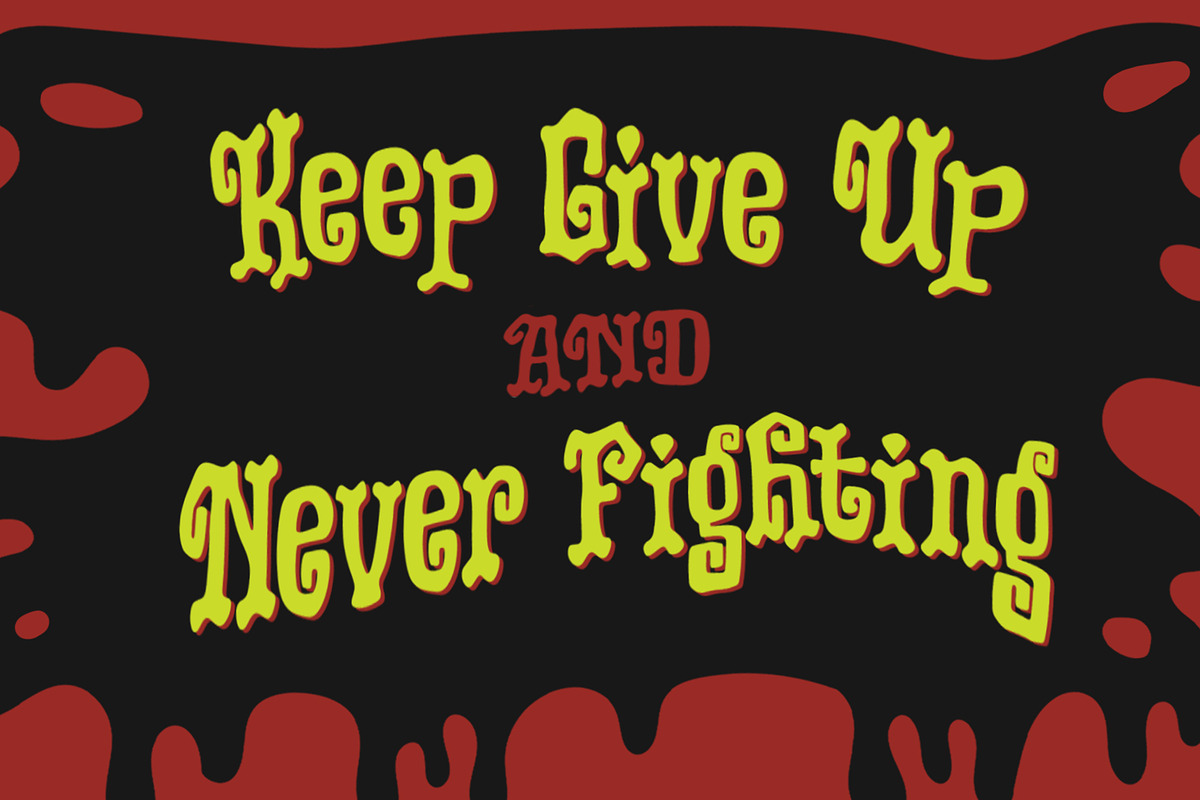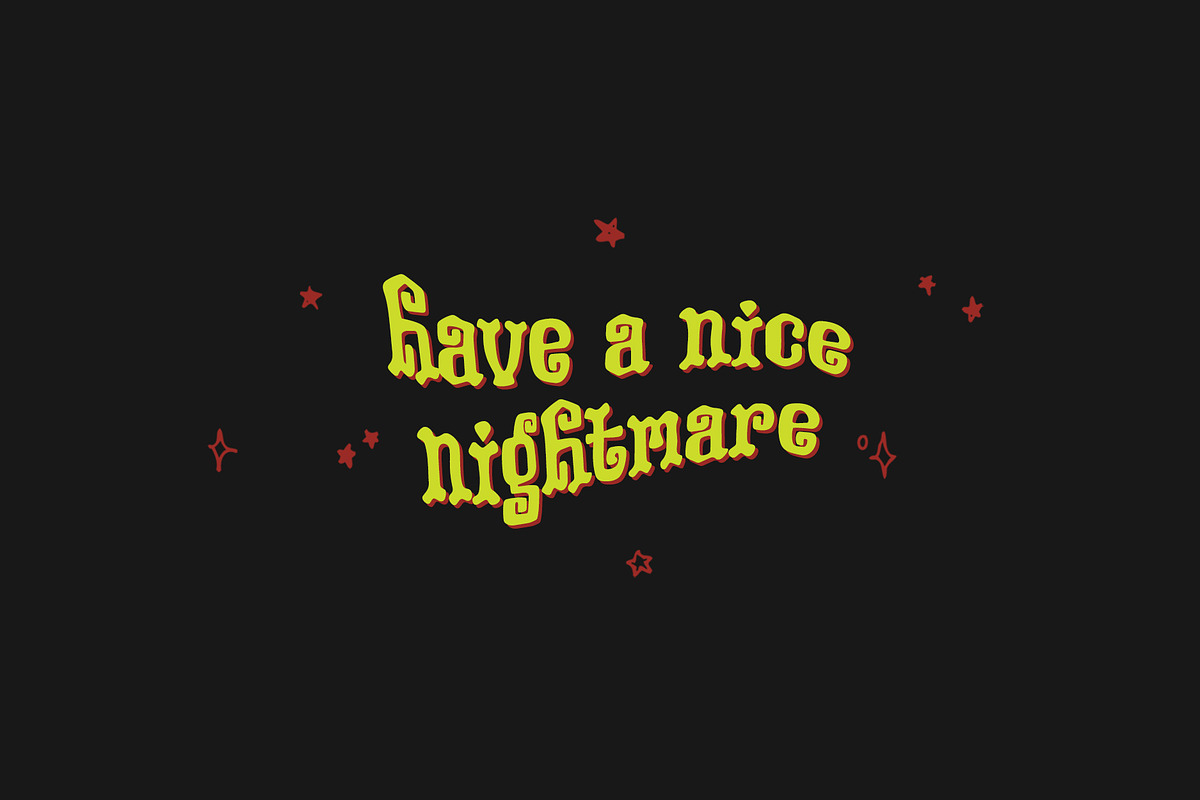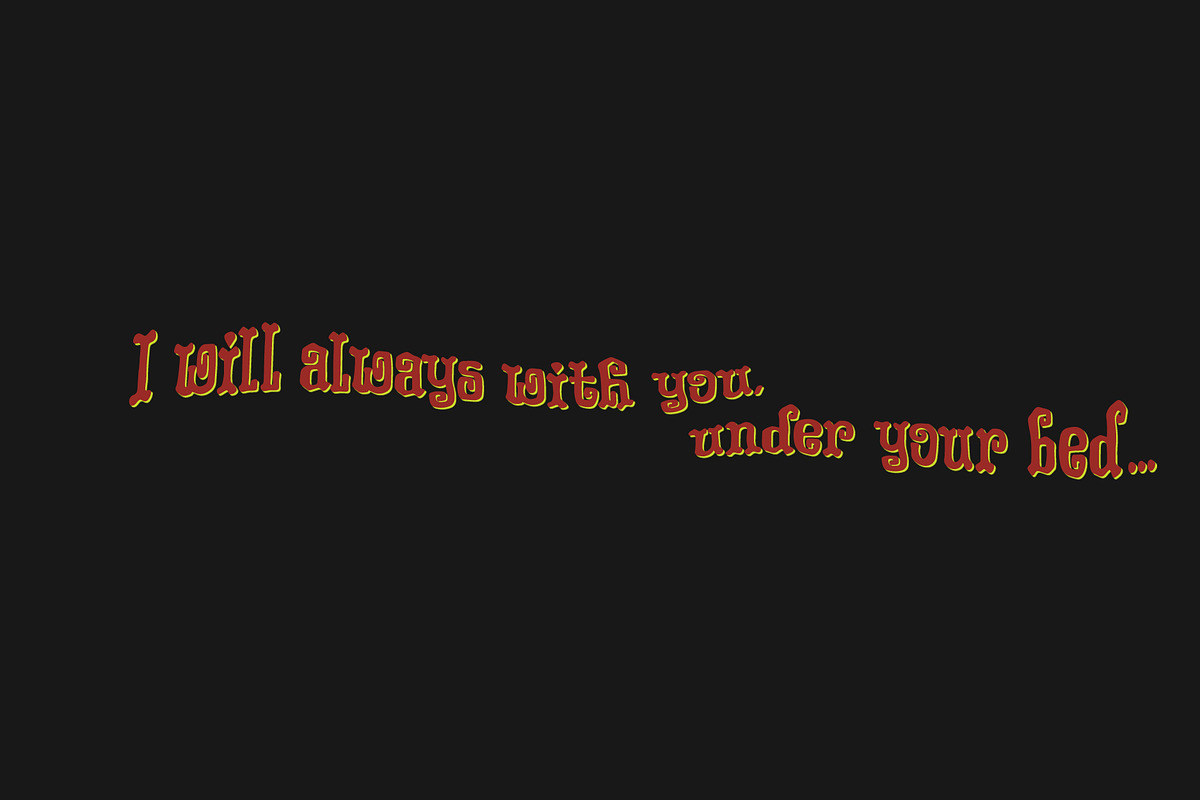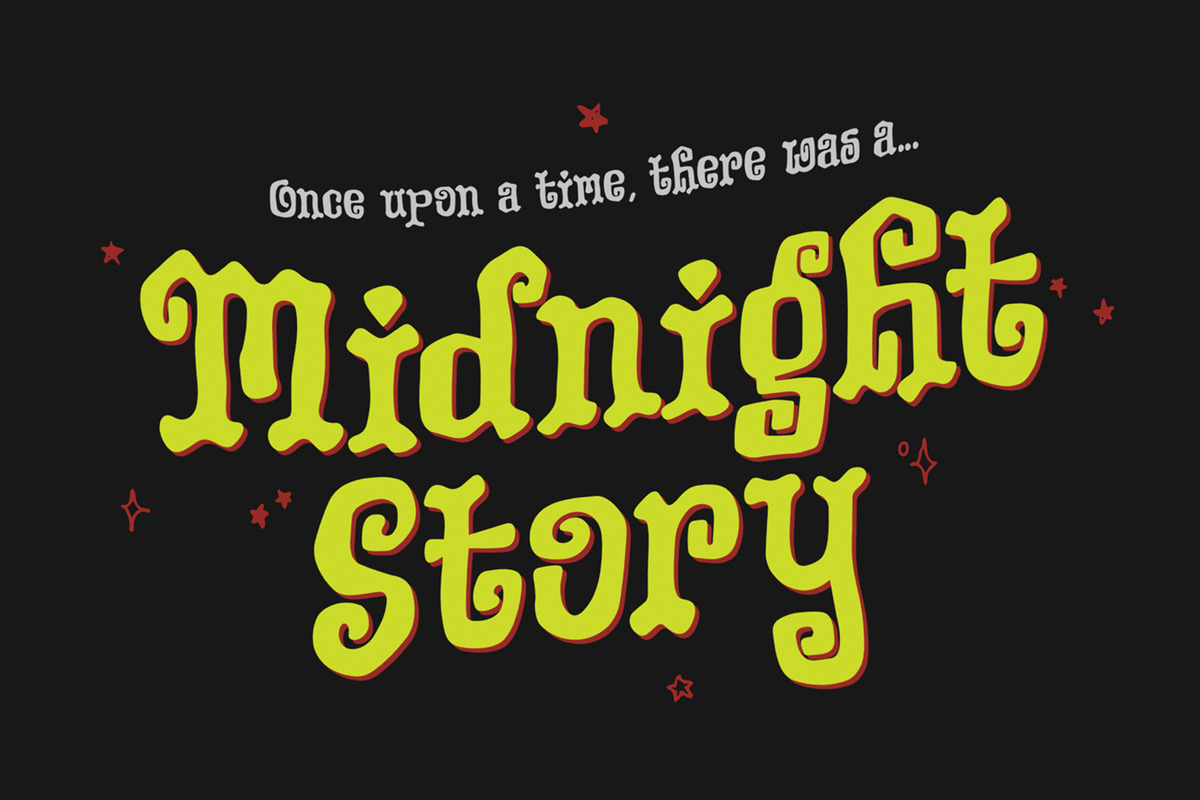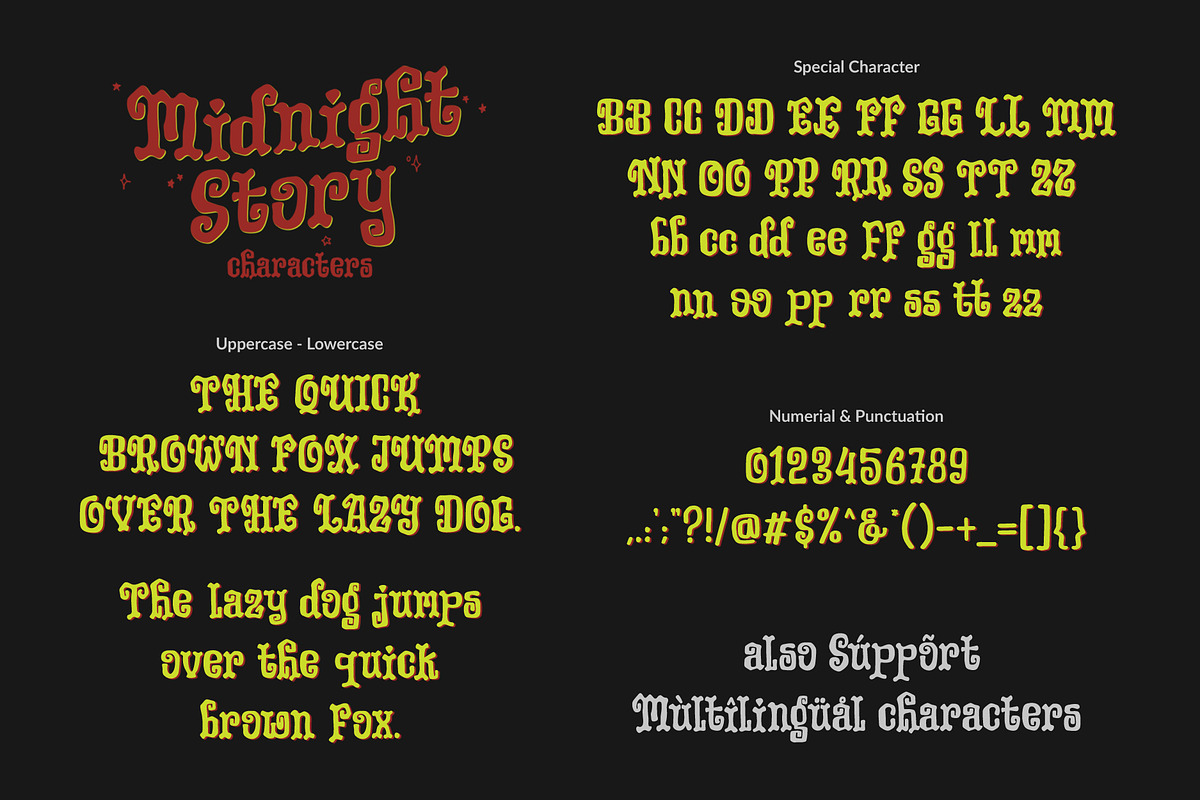
Midnight Story
Midnight Story font is specially designed for spooky yet horror occasion. This font has rough texture, so it will bring the creepy atmosphere in every glyphs. It's really horror when your project didn't meet the perfect font. So let Midnight Story be friends with your design and craft projects.